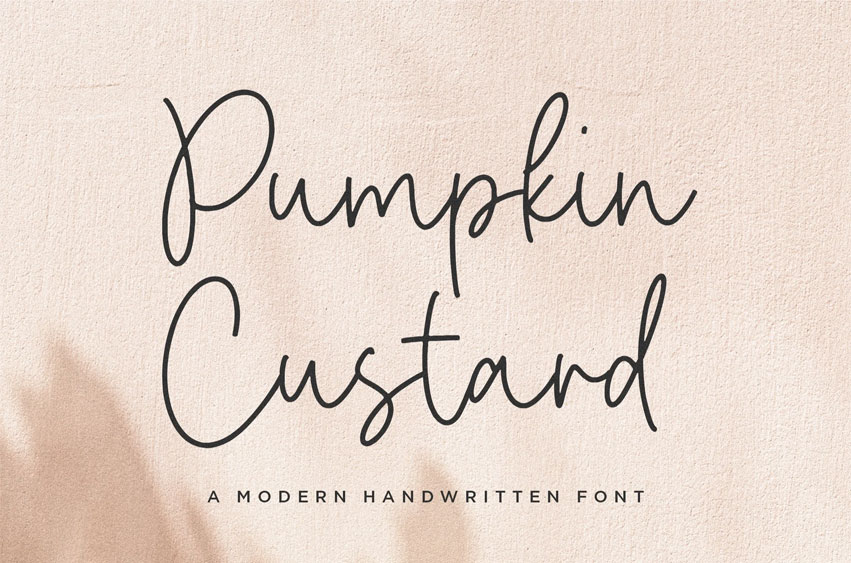
Pumkin Custard Font
Pumkin Custard Font is a Modern Handwritten Font. Pumkind Custard with an elegant style is here to give a luxurious impression to your design, made with consistent strokes to produce works that will perfect your design.